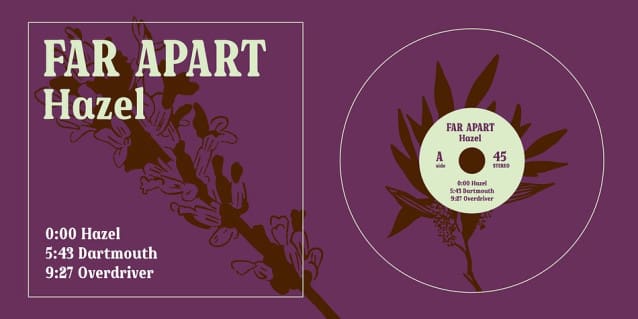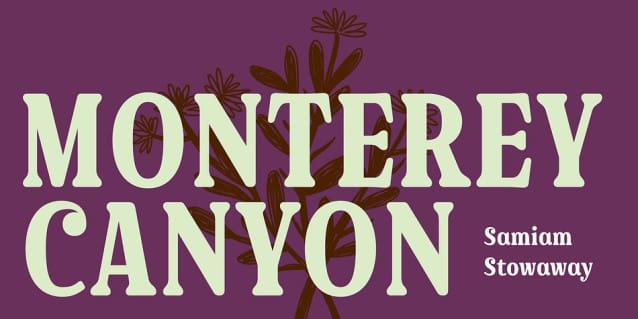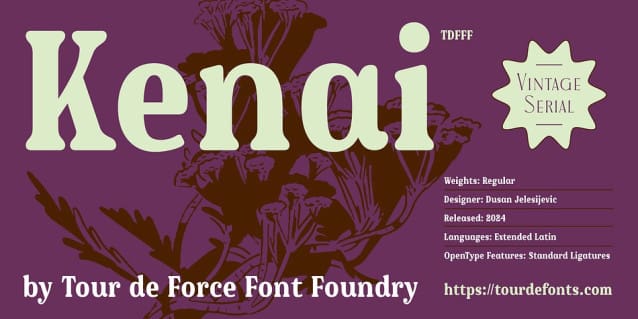
Kenai Font
Kenai Font is another single weight addition to Vintage Serial font families. Condensed by width, Kenai contains soft rounded serifs that were inspired with posters from 70’s. Those serifs make words look smooth and elegant while condensed letter width saves space.
Kenai is perfect for posters, packages and overall branding campaigns either as main or display font. Contains Standard Ligatures as OpenType features.